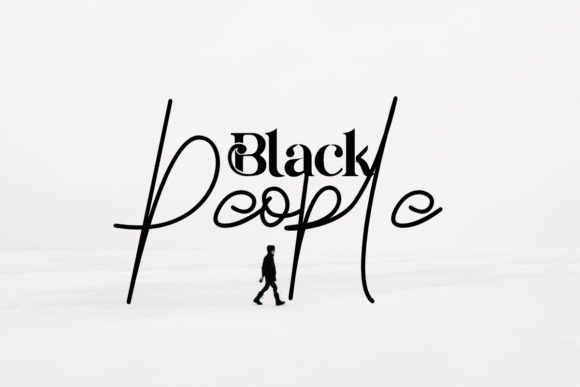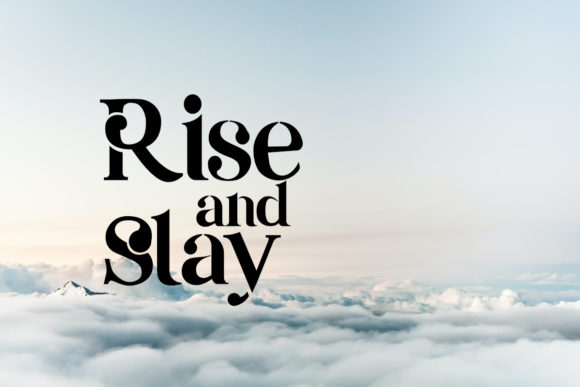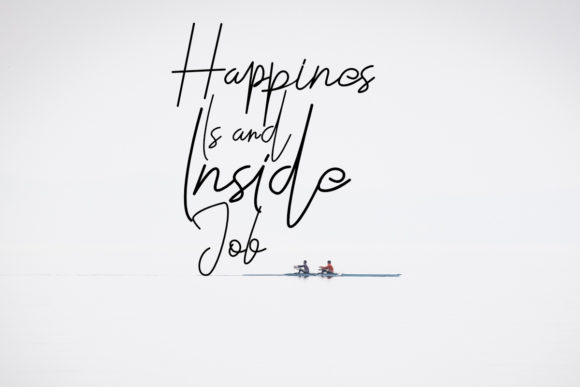
Introduction to Quillaja North Font
Quillaja North is a spectacular duo font (display and script).
Incredibly versatile, this font fits a wide pool of designs, elevating them to the highest levels Add this font to your favorite creative ideas and notice how it makes them come alive.
Quillaja North Font offers exceptional quality and versatility, making it a valuable addition to your design toolkit. Whether you’re creating for personal projects or commercial use, Quillaja North Font delivers professional results.